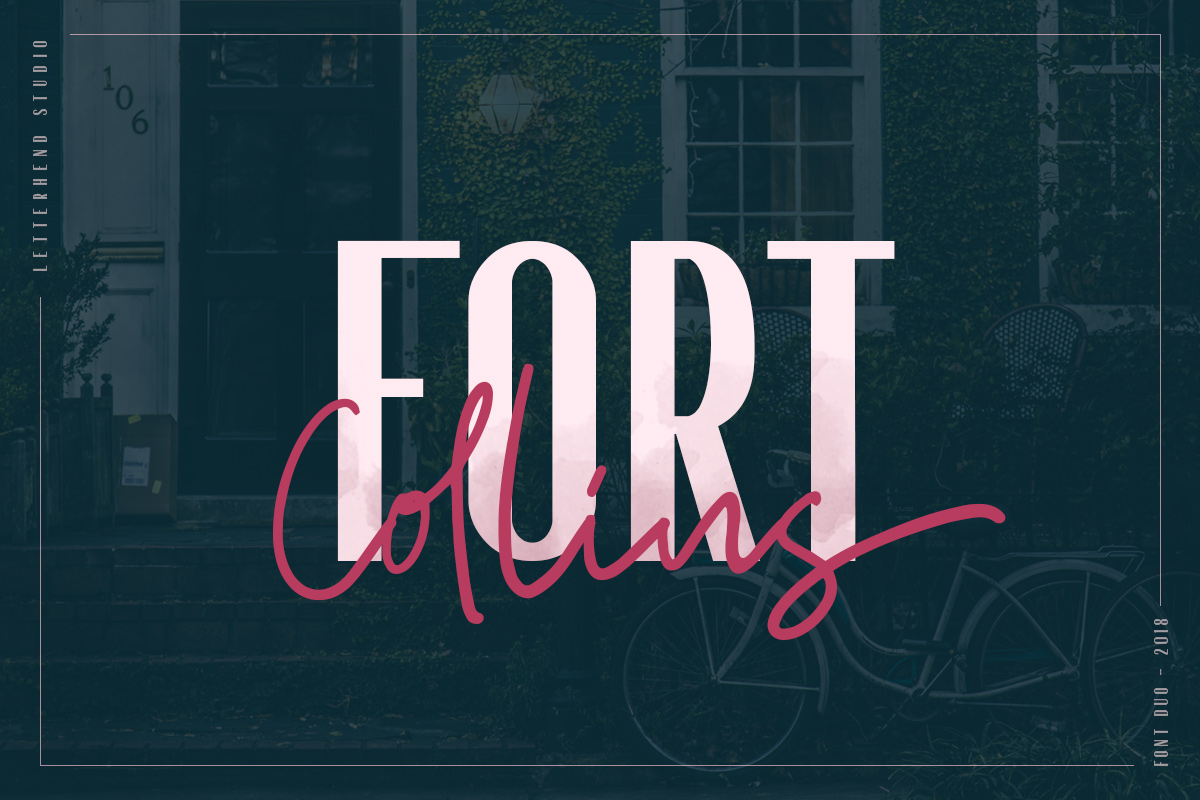
Fort Collins Font
Perfect for outdoor branding, adventure logos, posters, apparel design, and packaging.
The Fort Collins Font excites designers with its rugged yet clean design that captures the spirit of the great outdoors with a modern twist.
The Fort Collins Font Free Download is a bold sans-serif typeface designed to evoke strength and adventure. Its sharp edges and balanced proportions make it perfect for outdoor gear brands, travel agencies, and lifestyle products.
One of the key strengths of Fort Collins Font is its versatility—delivering clear readability while maintaining a bold and dynamic character that works well in both print and digital formats.
In branding, Fort Collins communicates durability, energy, and a connection to nature. It pairs excellently with earthy tones, textured backgrounds, and adventurous imagery, making your brand stand out with confidence.
For digital projects, this font enhances website headers, social media posts, and promotional materials, providing a strong and memorable visual impact.